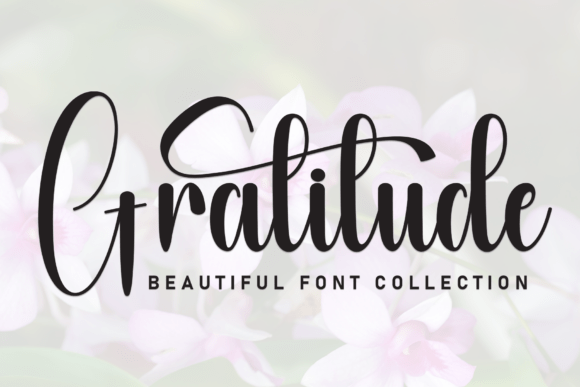
Gratitude Font: Elevate Your Designs with Elegance and Playfulness
In the world of typography, fonts play a crucial role in conveying emotions and setting the tone for various projects. Among the numerous fonts available, Gratitude Font stands out for its unique blend of elegance and playfulness. This stylish handwritten script font has gained popularity for its ability to add a personal, charming touch to invitations, branding, and social media. In this article, we’ll explore the features, benefits, and uses of Gratitude Font, and how it can elevate your designs to the next level.
What is Gratitude Font?
Gratitude Font is a beautifully crafted handwritten script font that exudes elegance and playfulness. Its flowing curves and natural rhythm make it perfect for adding a touch of sophistication and warmth to any project. The font’s design is characterized by its graceful strokes, which bring a sense of charm and personality to the text.
Key Features of Gratitude Font
- Handwritten Script Font: Gratitude Font is a handwritten script font that mimics the natural flow of handwritten text, giving it a personal and charming feel.
- Elegant and Playful: The font strikes a perfect balance between elegance and playfulness, making it suitable for a wide range of projects.
- Flowing Curves: The font’s flowing curves and natural rhythm add a touch of sophistication and warmth to the text.
- Versatile: Gratitude Font can be used for various projects, including invitations, branding, social media, and more.
Benefits of Using Gratitude Font
Using Gratitude Font in your designs can bring numerous benefits. Some of the advantages of using this font include:
- Personal Touch: The font’s handwritten script style adds a personal touch to the text, making it more relatable and engaging.
- Elegance and Sophistication: Gratitude Font’s elegant design brings a sense of sophistication and refinement to any project.
- Creativity and Playfulness: The font’s playful curves and natural rhythm add a touch of creativity and playfulness to the text.
- Versatility: Gratitude Font can be used for various projects, from formal invitations to social media posts.
Uses of Gratitude Font
Gratitude Font is a versatile font that can be used for various projects, including:
- Invitations: The font’s elegant design makes it perfect for formal and informal invitations, such as wedding invitations, birthday invitations, and more.
- Branding: Gratitude Font can be used for branding purposes, such as logos, business cards, and letterheads.
- Social Media: The font’s playful curves and natural rhythm make it suitable for social media posts, including Instagram captions, Facebook posts, and more.
- Advertising: Gratitude Font can be used for advertising purposes, such as billboards, flyers, and brochures.
Gratitude Font is a stylish handwritten script font that captures elegance and playfulness in every stroke. With its flowing curves and natural rhythm, it adds a personal, charming touch to invitations, branding, and social media. Its versatile design makes it suitable for various projects, from formal invitations to social media posts. By using Gratitude Font in your designs, you can add a touch of sophistication, warmth, and creativity to your projects.
- What is Gratitude Font?: Gratitude Font is a handwritten script font that exudes elegance and playfulness.
- Can I use Gratitude Font for social media?: Yes, Gratitude Font can be used for social media posts.
- Can I pair Gratitude Font with other fonts?: Yes, Gratitude Font can be paired with other fonts to create a unique look.